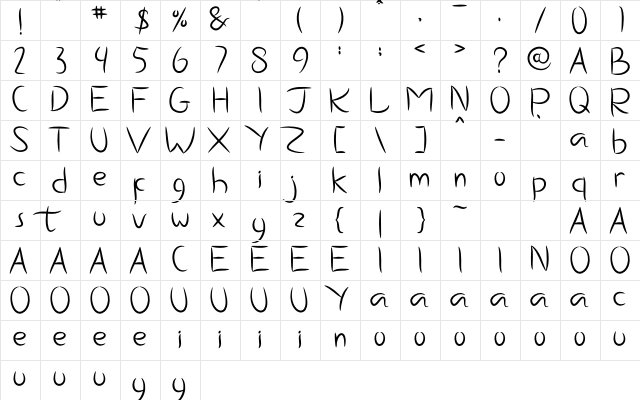
Dolleane Smille Regular
| Designer | Doni Dorra |
Design Context for Dolleane Smille Typeface
Dolleane Smille takes a measured approach to typography — its balanced proportions and neutral character make it a reliable workhorse for both digital and print work.